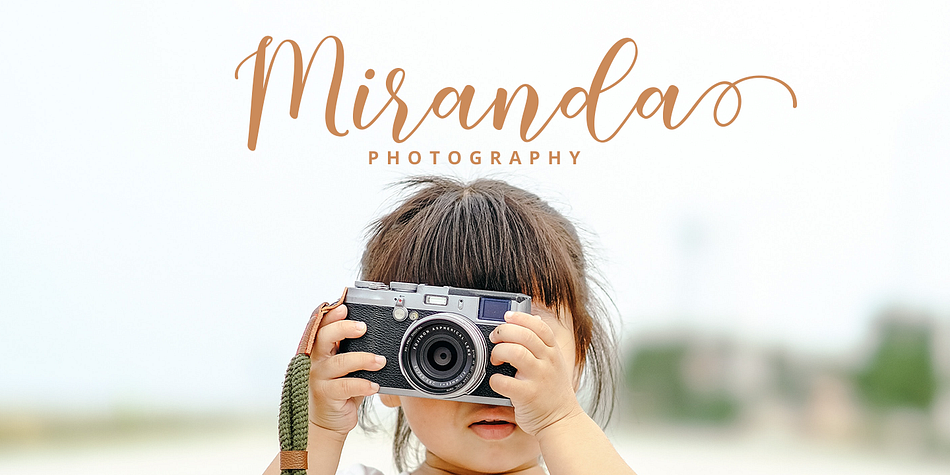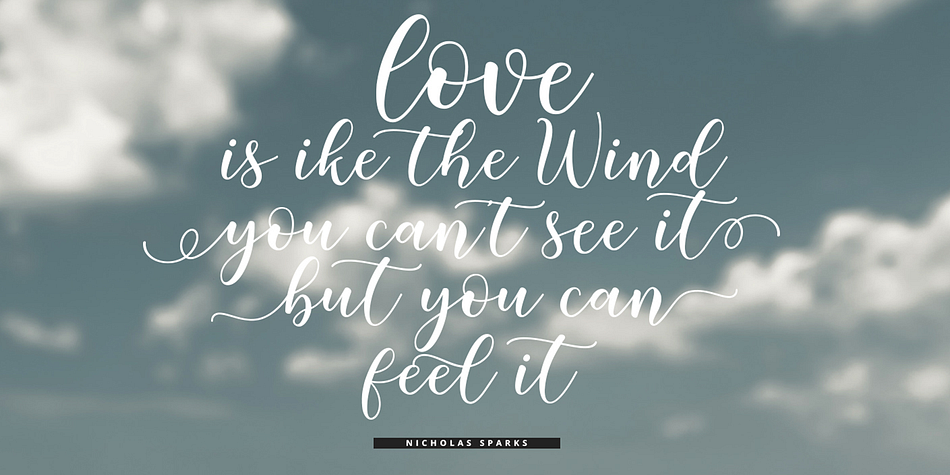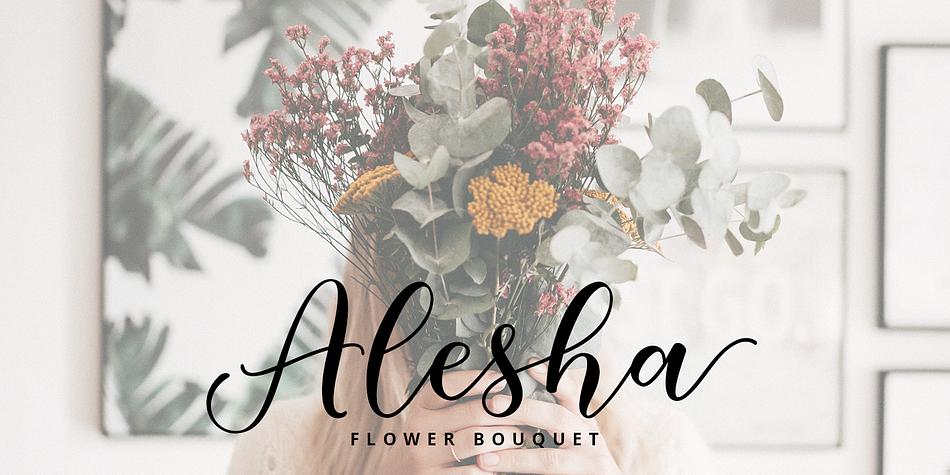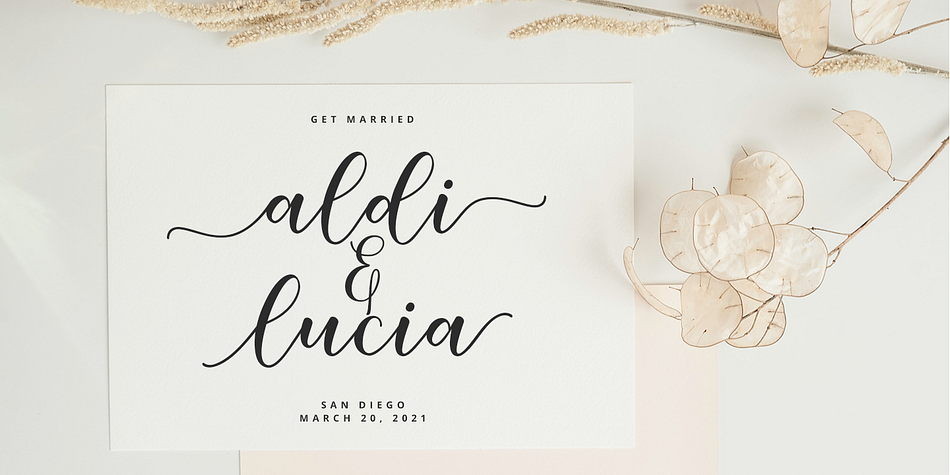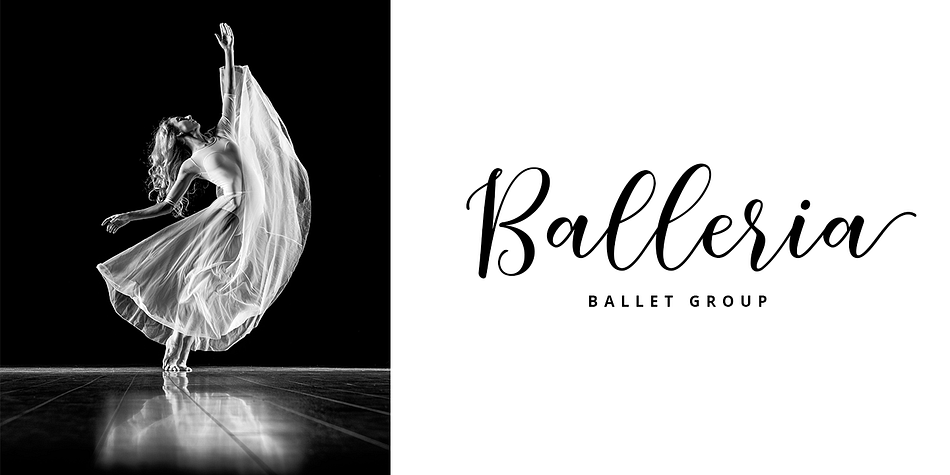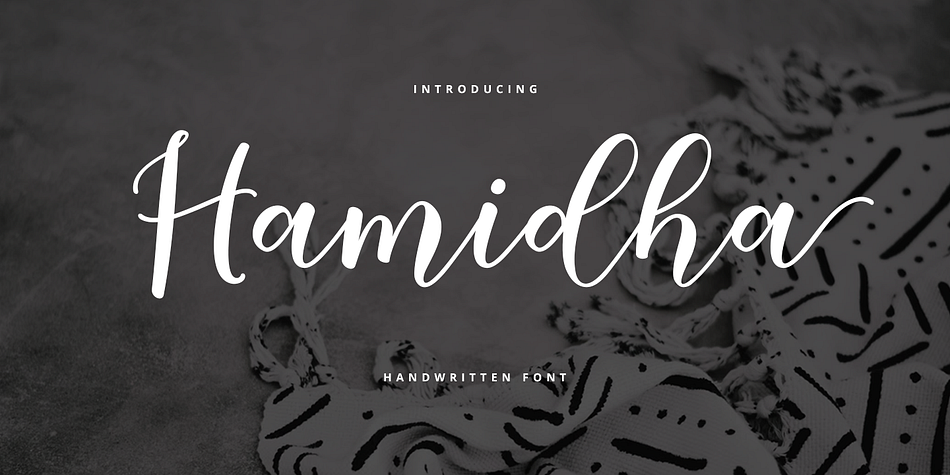
Hamidha
Hamidha is a brush script font family published by Gatype.
Hamidha is suitable use for market design developed at this time, this font has a model Trendy, natural and gentle, with this font you can take advantage of the opportunity in every moment of one wonderful way to highlight the celebration of the feast of your best, because this font will be advocates for purposes such as wedding invitations, party, graduation, birthday, gathering, etc.